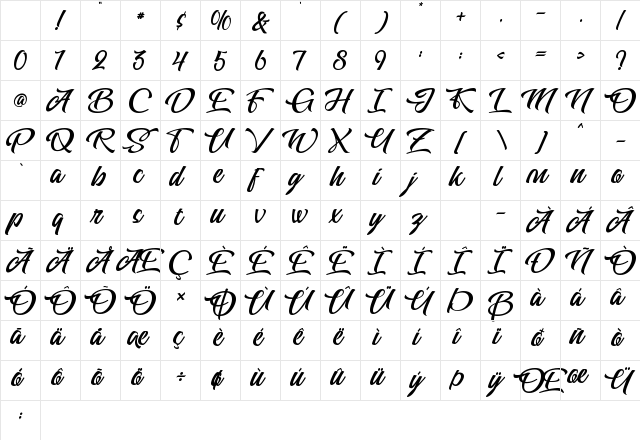
Complete Dragon Heroes - Personal use Regular glyph index. Displaying only characters natively supported by Dragon Heroes - Personal use Regular font.
Dragon Heroes - Personal use is a composed and adaptable typeface that performs quietly and consistently across a wide range of design contexts.